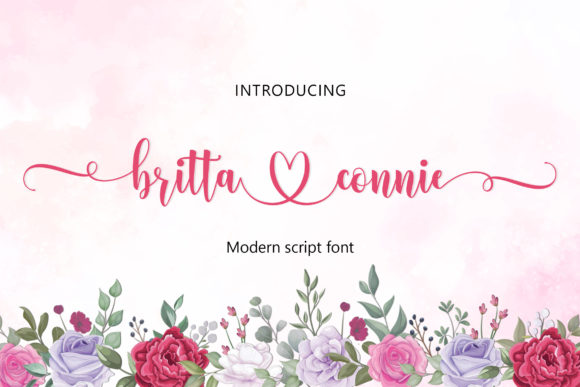
Discover the Elegance of Britta Connie Font: A Romantic Calligraphy Typeface
In the world of typography, fonts play a crucial role in bringing designs to life. Among the numerous typefaces available, the Britta Connie Font stands out for its romantic and sweet calligraphy style. This exquisite font is designed to add a touch of luxury to any design project, making it a sought-after choice for creatives. In this article, we’ll delve into the features and benefits of the Britta Connie Font, exploring how it can elevate your designs and make them truly unforgettable.
What is Britta Connie Font?
Britta Connie is a romantic and sweet calligraphy typeface that boasts characters dancing along the baseline. This unique feature gives the font a lively and elegant feel, perfect for designs that require a touch of sophistication. The font’s design is characterized by its flowing lines, intricate details, and beautiful ligatures, making it an excellent choice for a wide range of design projects.
Key Features of Britta Connie Font
- Romantic and Sweet Calligraphy Style: Britta Connie’s calligraphy style is both romantic and sweet, making it perfect for designs that require a touch of elegance.
- Characters that Dance Along the Baseline: The font’s unique design feature, where characters dance along the baseline, adds a lively and dynamic feel to any design.
- Luxury Spark: Britta Connie is designed to add a luxury spark to any design project, making it ideal for high-end branding, packaging, and advertising.
- PUA Encoded: The font is PUA encoded, allowing easy access to all the amazing glyphs and ligatures.
The Benefits of Using Britta Connie Font
Using the Britta Connie Font in your design projects comes with numerous benefits. Here are some of the advantages of incorporating this beautiful typeface into your work:
- Elegance and Sophistication: Britta Connie adds an air of elegance and sophistication to any design, making it perfect for high-end branding and luxury products.
- Versatility: The font’s versatility makes it suitable for a wide range of design projects, from wedding invitations and packaging to advertising and editorial design.
- Easy to Use: With its PUA encoding, accessing the font’s glyphs and ligatures is easy, making it simple to create stunning designs.
- Unique and Memorable: Britta Connie’s unique design ensures that your designs stand out from the crowd, making them more memorable and impactful.
How to Use Britta Connie Font in Your Design Projects
Incorporating the Britta Connie Font into your design projects is easy. Here are some tips on how to make the most of this beautiful typeface:
- Pair it with Neutral Backgrounds: Pair Britta Connie with neutral backgrounds to make the font stand out and showcase its elegance.
- Experiment with Colors: Experiment with different colors to find the perfect match for your design. Soft pastels and metallic colors work particularly well with Britta Connie.
- Use it for Headings and Titles: Use Britta Connie for headings and titles to add a touch of luxury and sophistication to your designs.
- Don’t Forget the Details: Pay attention to the details and use the font’s glyphs and ligatures to add a personal touch to your designs.
Who Can Benefit from Using Britta Connie Font?
The Britta Connie Font is suitable for a wide range of designers and creatives. Here are some of the professionals who can benefit from using this beautiful typeface:
- Graphic Designers: Graphic designers can use Britta Connie to add a touch of elegance and sophistication to their designs.
- Branding and Packaging Designers: Branding and packaging designers can use the font to create high-end branding and packaging designs.
- Wedding and Event Planners: Wedding and event planners can use Britta Connie to create beautiful wedding invitations and event materials.
- Advertising and Marketing Professionals: Advertising and marketing professionals can use the font to create eye-catching and memorable ads.
In conclusion, the Britta Connie Font is a romantic and sweet calligraphy typeface that can add a luxury spark to any design project. With its unique design features, versatility, and ease of use, it’s an excellent choice for creatives looking to elevate their designs. Whether you’re a graphic designer, branding and packaging designer, or advertising professional, Britta Connie is sure to become a valuable addition to your design toolkit.
Why Choose Britta Connie Font?
With its elegant design, versatility, and ease of use, Britta Connie Font is the perfect choice for anyone looking to add a touch of luxury and sophistication to their designs. So why choose Britta Connie Font? The answer is simple: it’s a beautiful, elegant, and versatile typeface that can help you create stunning designs that stand out from the crowd.